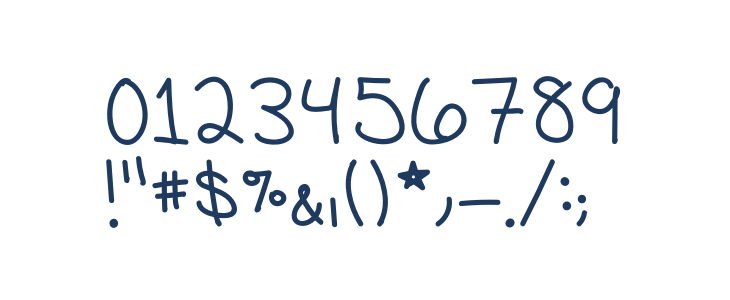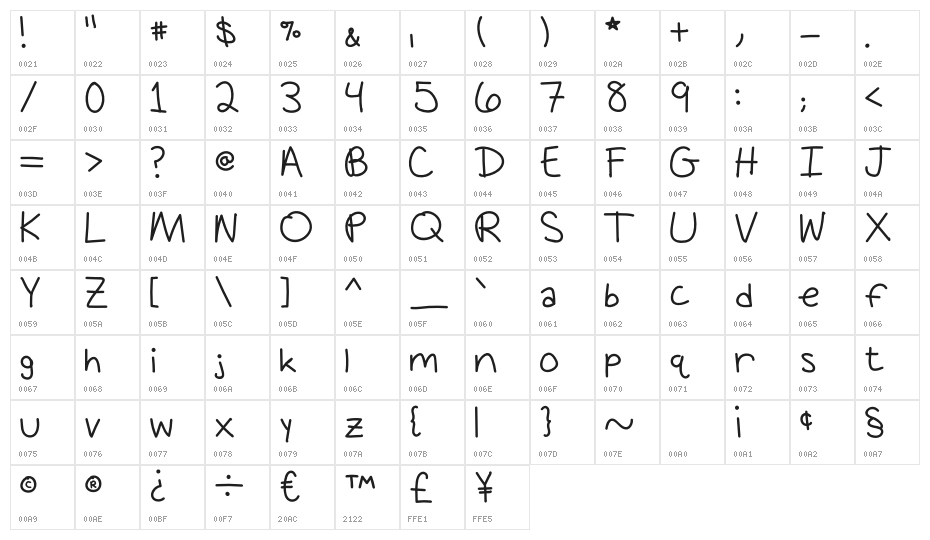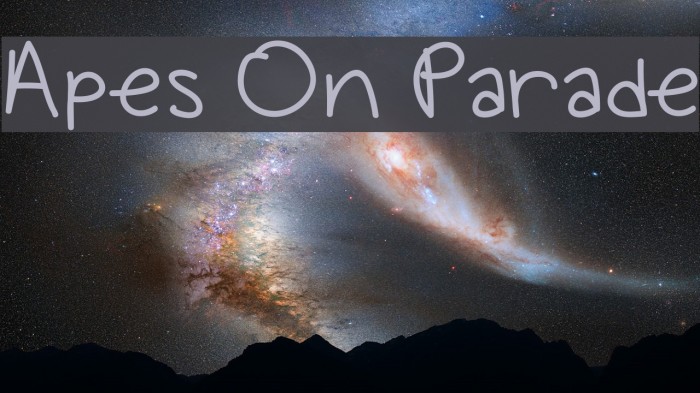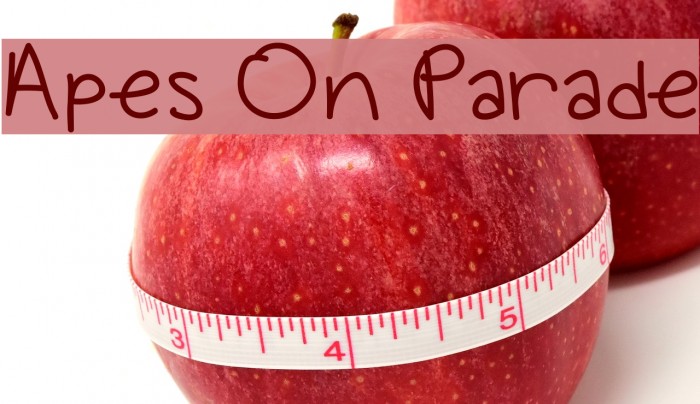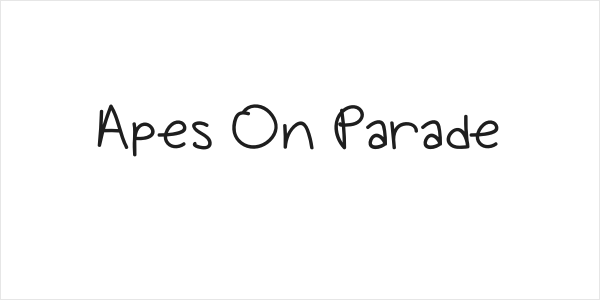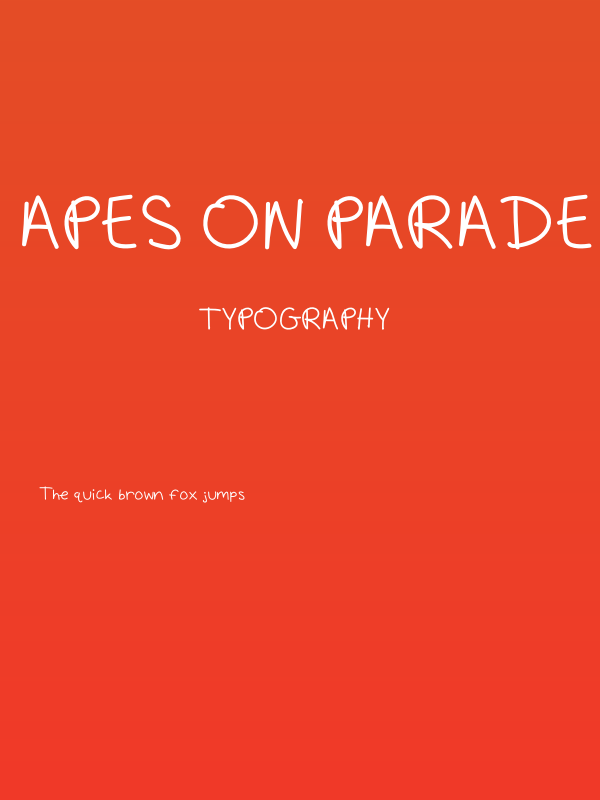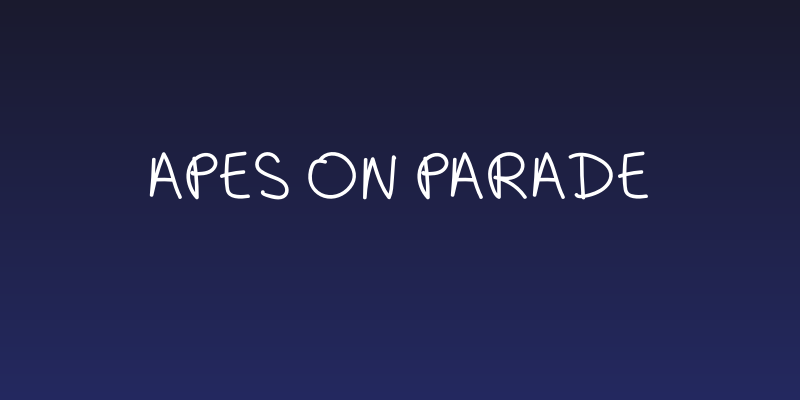
Apes On Parade Font
Apes On Parade Description
This playful and whimsical font features a handwritten style that exudes a casual and friendly vibe. The characters are slightly irregular, with a natural flow that mimics the look of hand-drawn letters. The uppercase and lowercase letters maintain a consistent style, with rounded edges and a slightly uneven baseline that adds to the charm. The numerals and special characters follow the same playful aesthetic, making the font versatile for various creative projects. Its informal appearance makes it ideal for designs that require a personal touch, such as children's books, greeting cards, or playful branding.
Overall StyleCasual
Use CaseHeadlines, Logos, Informal Text
Proposed ProjectsIdeal for children's books, greeting cards, playful branding, and casual invitations.